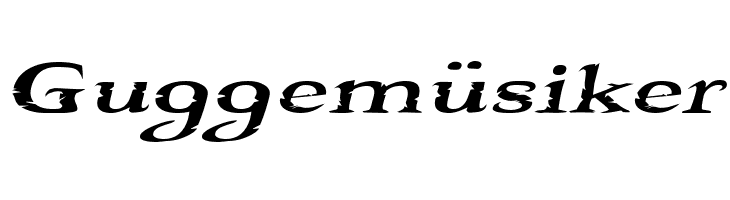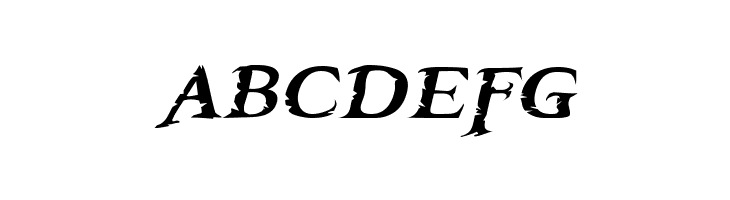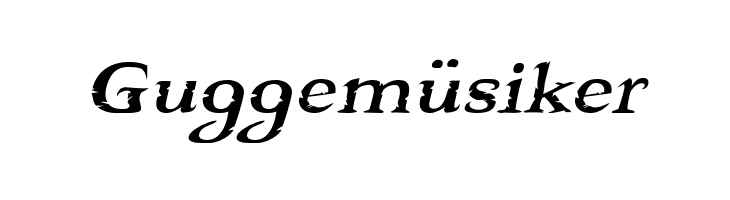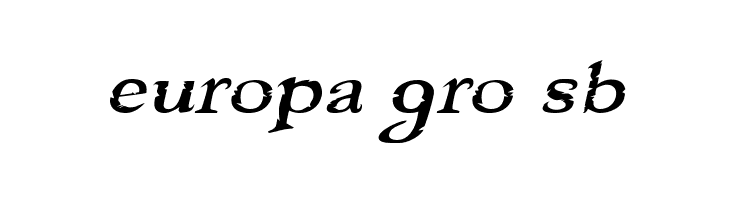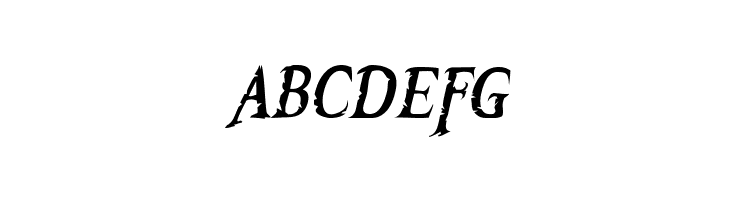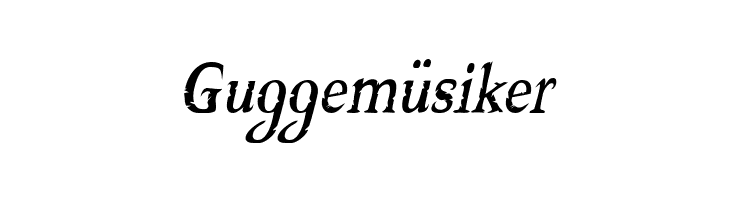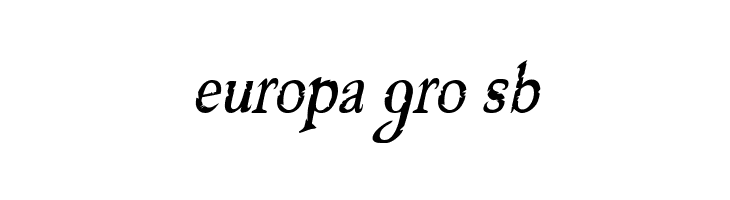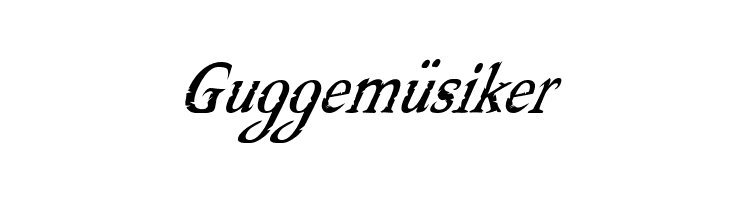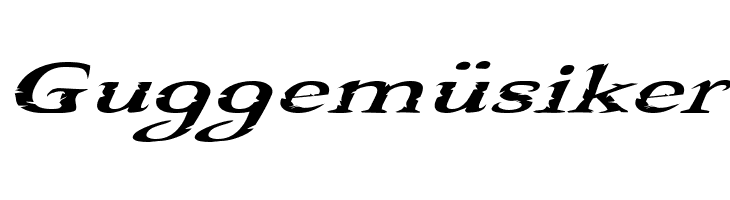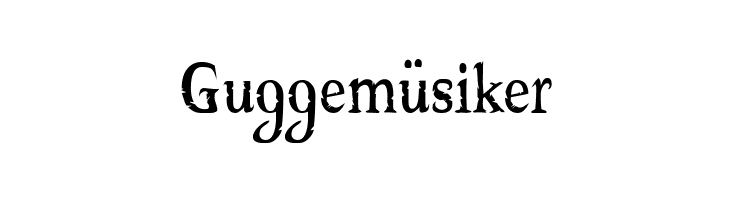
Booter - Five Zero Font
A bold, jagged font with sharp, irregular edges for dramatic impact.
Booter - Zero Zero Font
A bold, distressed serif font with a rugged, grunge-like appearance.
Booter - Five Five Font
A dynamic, edgy font with sharp strokes and a slightly distressed look.
Booter - One Five Font
A dynamic, edgy font with sharp, angular strokes and a distressed look.
Booter - One Zero Font
A bold, angular font with a distressed, dynamic style.
Booter - Zero One Font
A bold, angular serif font with a dynamic slant and dramatic style.
Booter - Five One Font
A bold, slanted font with sharp, angular characters and a dynamic style.
Booter - Zero Five Font
A dynamic, edgy serif font with sharp, angular serifs and a rebellious flair.
Booter - One One Font
A dynamic, slanted font with sharp, angular strokes and a bold presence.